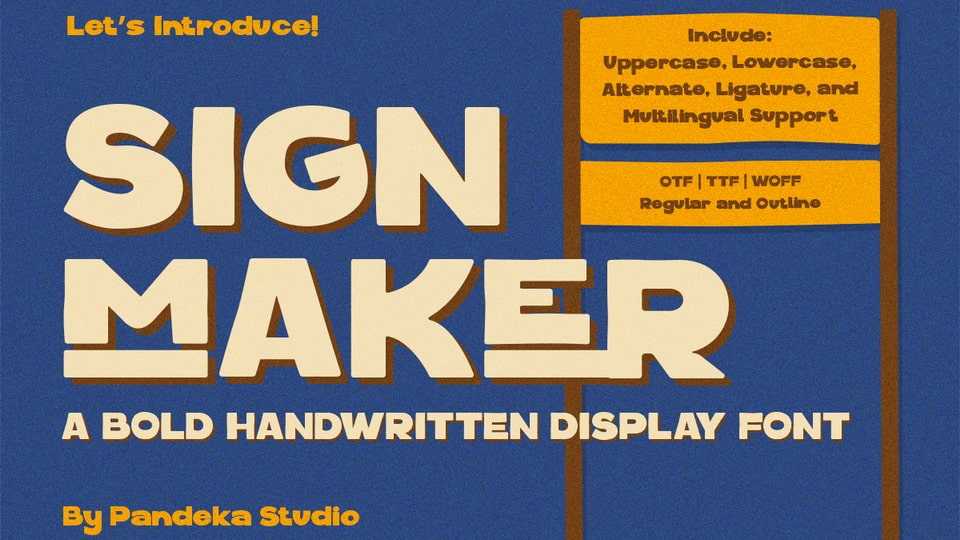
Download Signmaker font, a bold handwritten display typeface with a retro flair and casual charm. Perfect for strong typography needs like posters, fashion branding, product packaging.